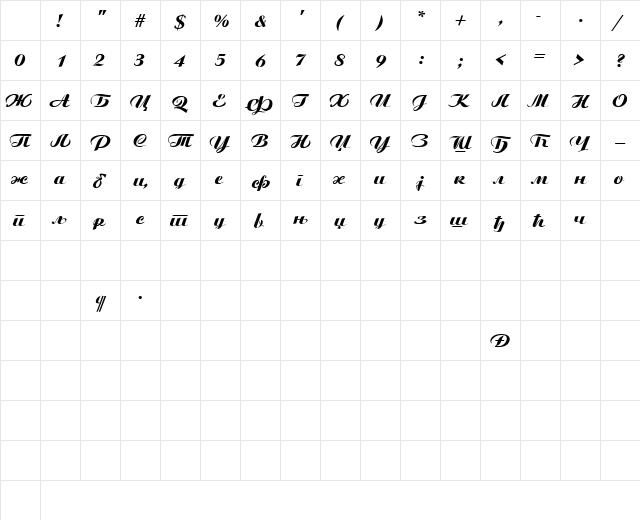
Ariston Cirilica Bold Italic
Ariston Cirilica Family
Design Context for Ariston Cirilica
Ariston Cirilica is a composed and adaptable typeface that performs quietly and consistently across a wide range of design contexts. The slanted form adds forward momentum and visual energy. Its bold stroke weight gives it real presence on the page.
Pro Tip: Use Ariston Cirilica for emphasis, pull quotes, and subheadings where its slanted energy can add rhythm to the layout.